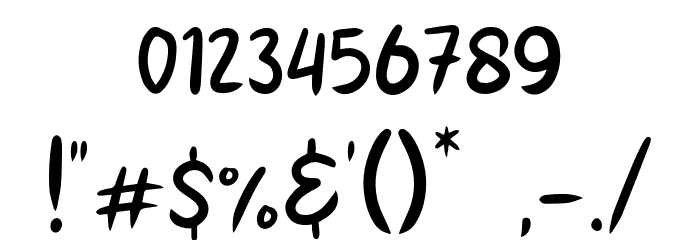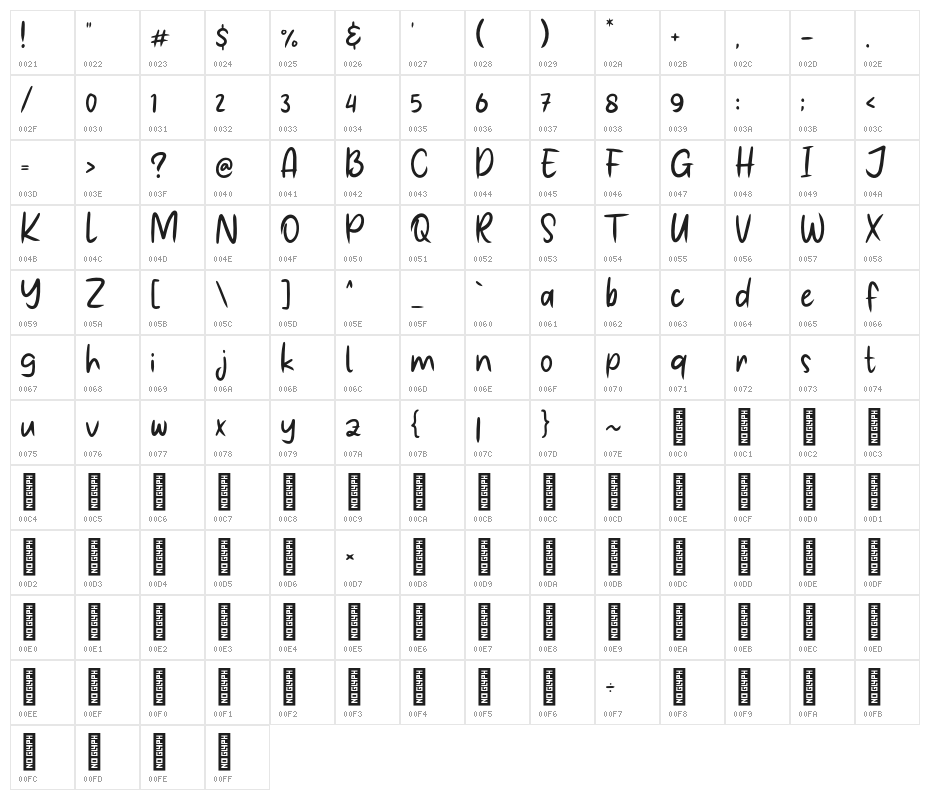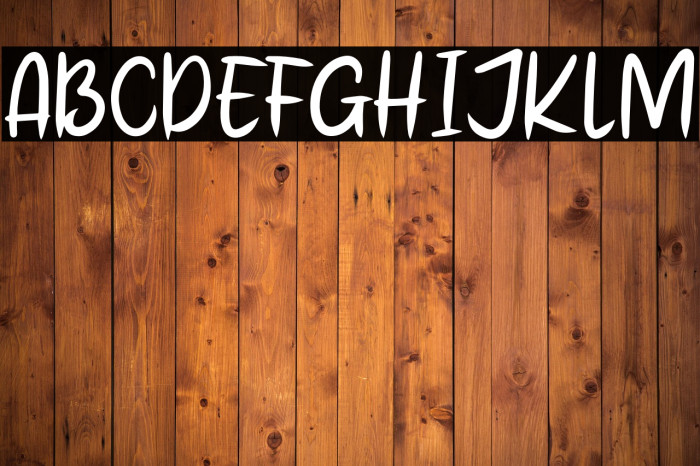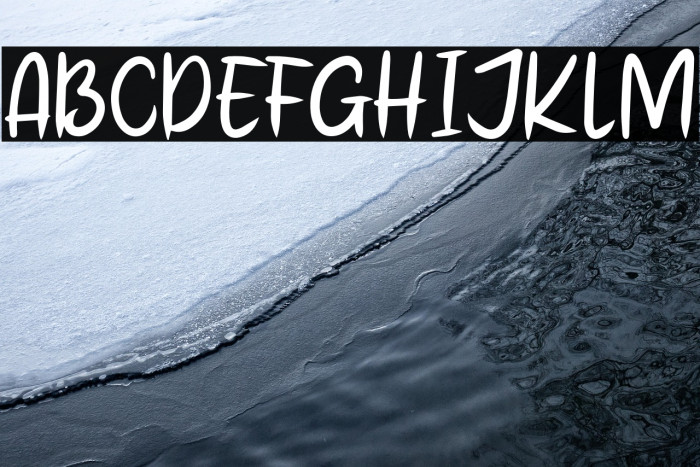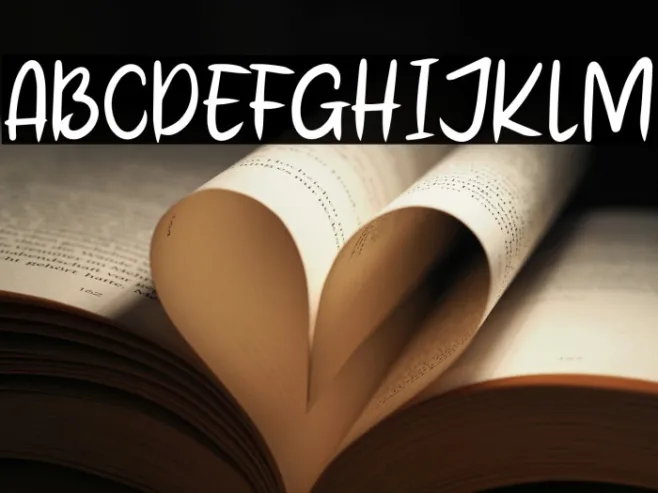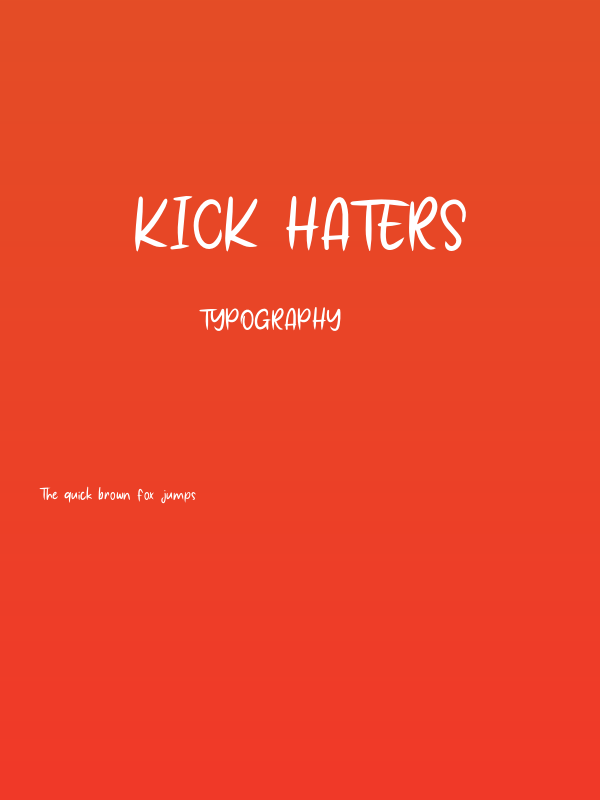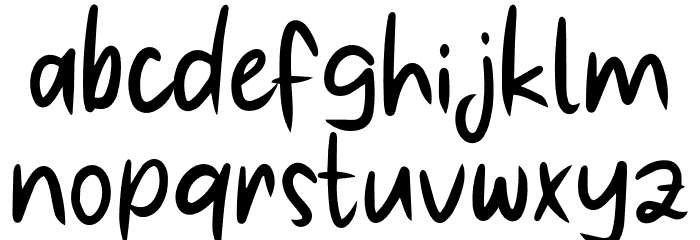
Kick Haters Font
Kick Haters Description
This font features a playful and energetic handwritten style, characterized by its bold and slightly irregular strokes. The letters have a casual, informal appearance, with a slight slant that adds to the dynamic feel. The uppercase letters are tall and slightly narrow, while the lowercase letters maintain a consistent flow, enhancing readability. The numbers and special characters follow the same lively style, making the font versatile for various creative applications. Its unique charm is perfect for projects that require a personal touch or a sense of fun and spontaneity.
| Overall Style | Playful, Casual |
| Proposed Projects | Ideal for greeting cards, social media graphics, children's books, and playful branding. |